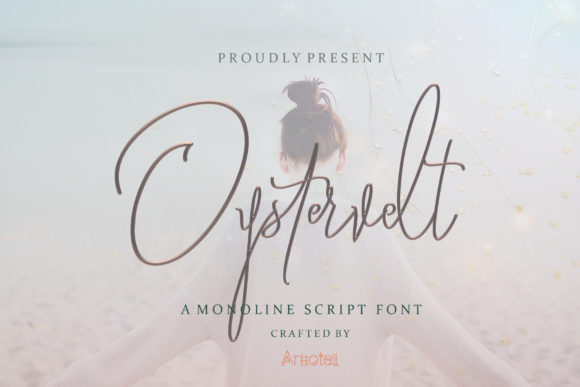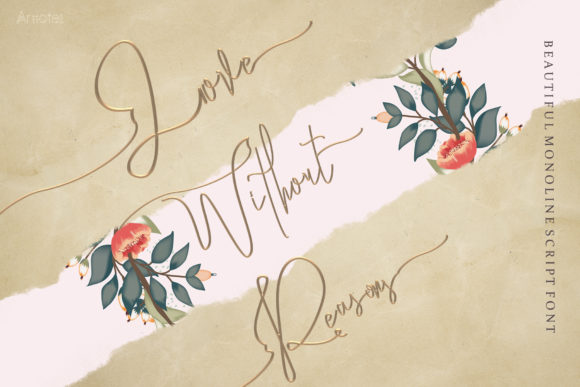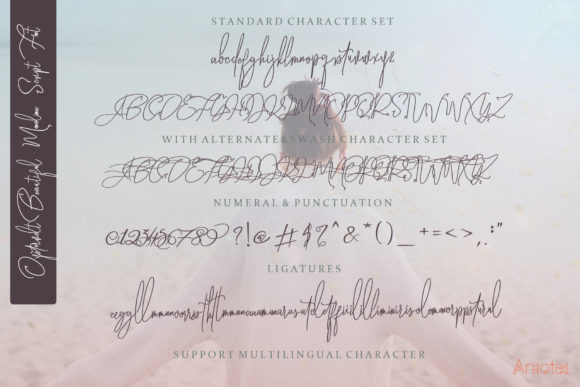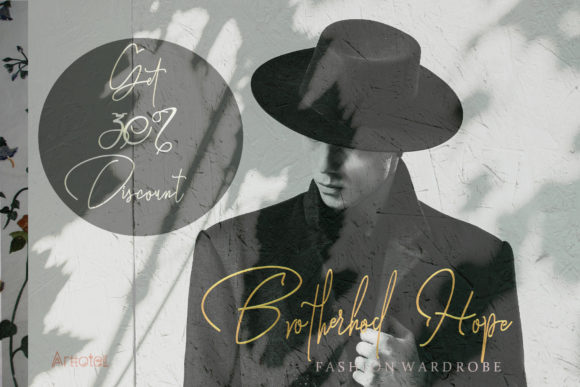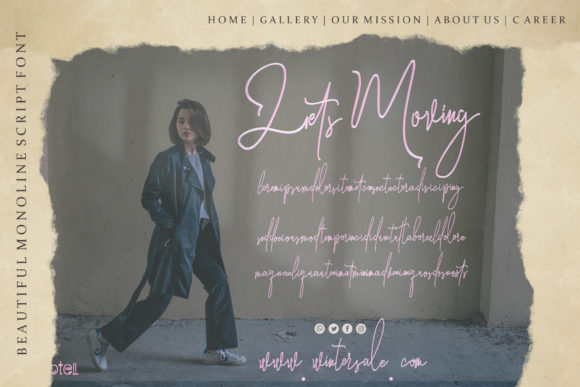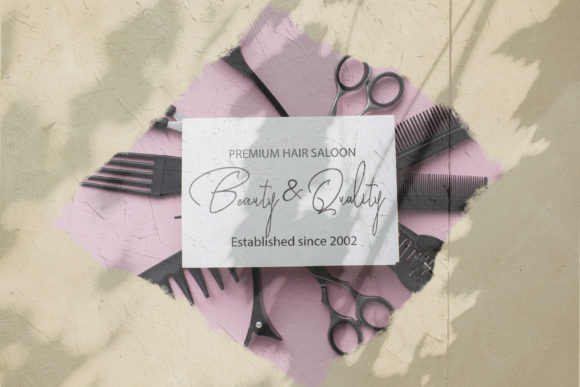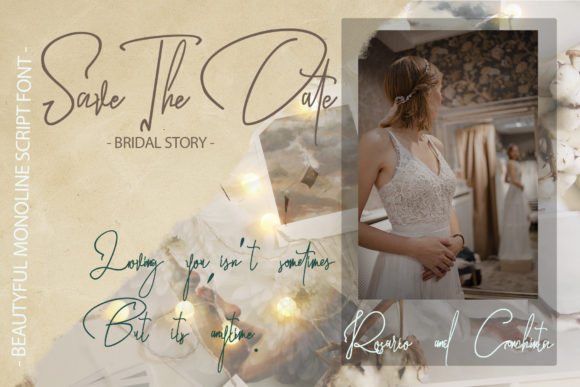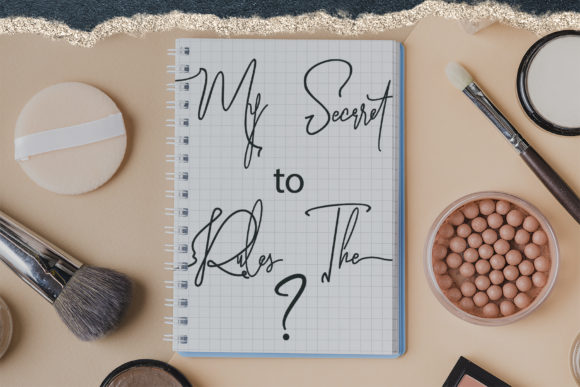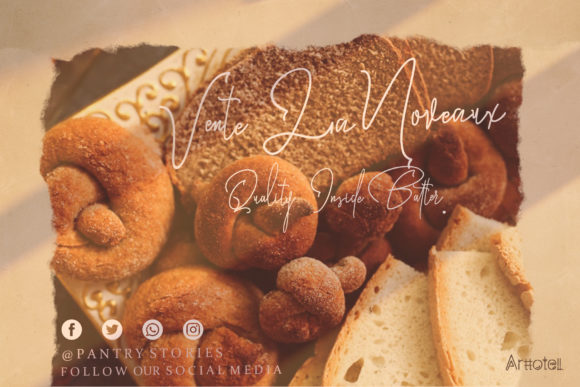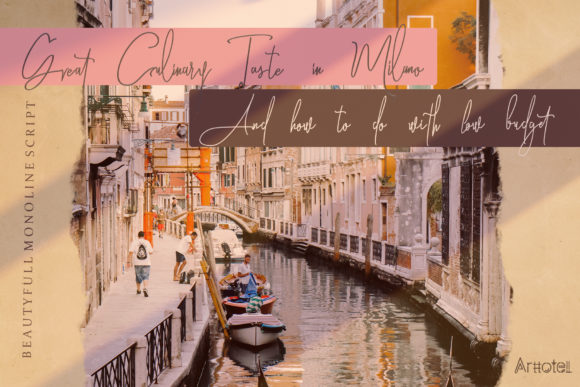
Oystersvelt Font
About Oystersvelt Font
Oystersvelt is a beautiful monoline script font crafted with detail and passion in every signature. Get inspired by its unique charm!